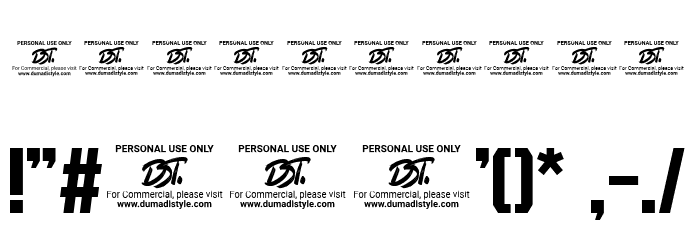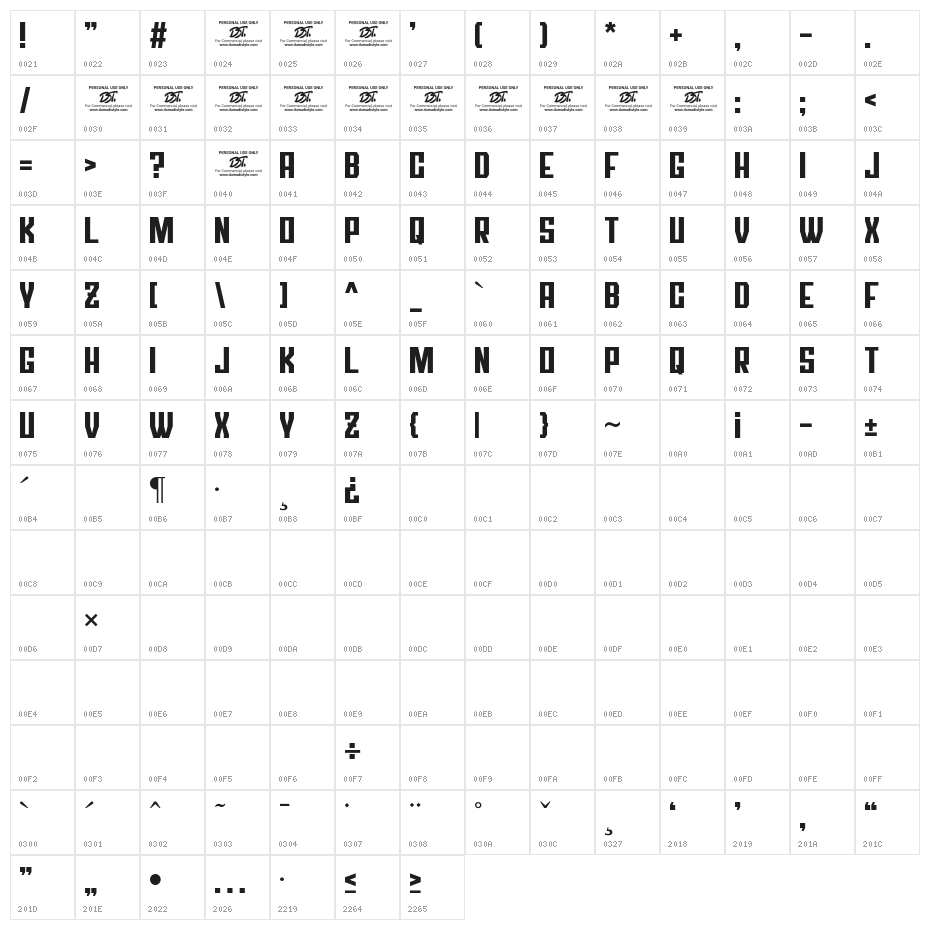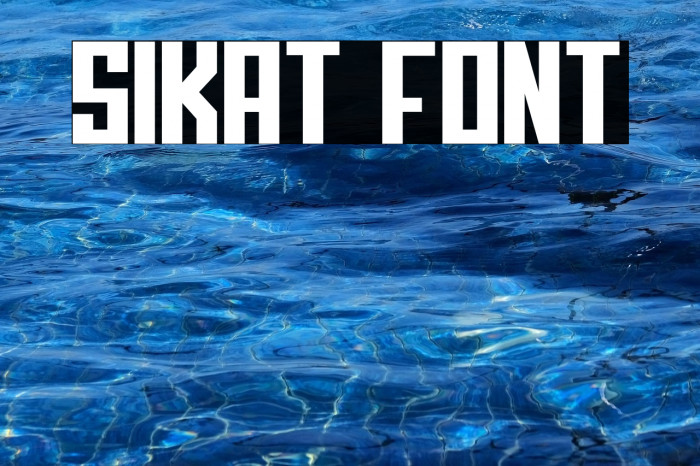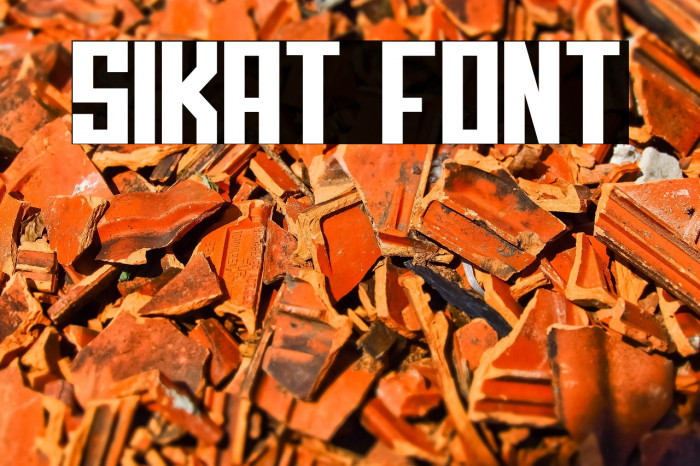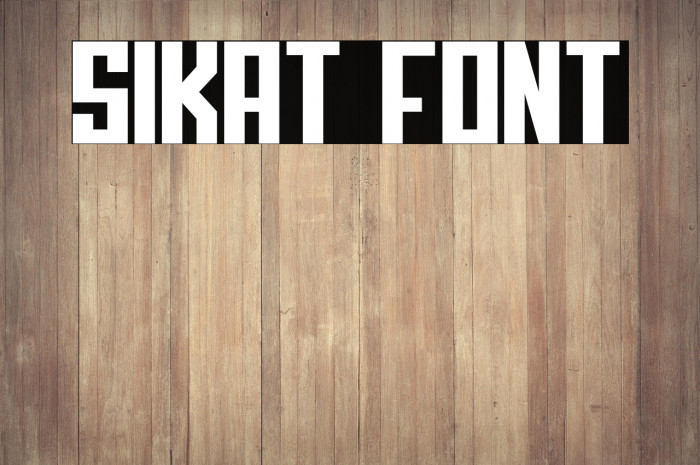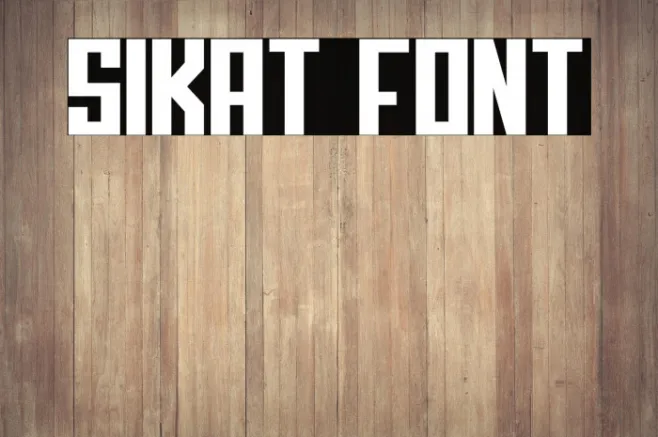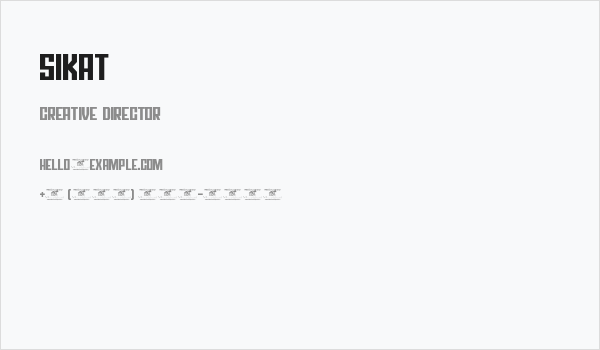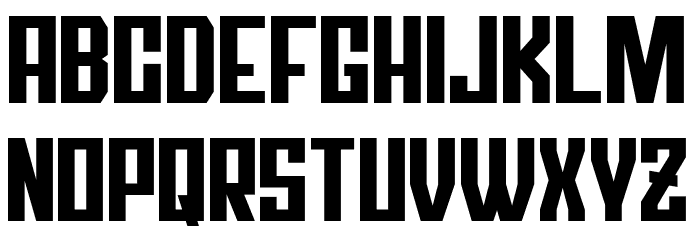
SIKAT Font
SIKAT Description
This font features a bold and impactful style with strong geometric shapes and sharp angles. Each character is designed with a consistent width, creating a uniform appearance across the alphabet. The uppercase letters are particularly striking, with a blocky, almost industrial feel that commands attention. The font includes a full set of uppercase letters, numbers, and a selection of special characters, making it versatile for various design needs. Its boldness and clarity make it suitable for headlines and titles, where readability and impact are essential.
| Proposed Projects | This font is perfect for projects that require a strong visual impact, such as posters, banners, branding materials, and logo designs. Its bold style makes it suitable for sports team branding, event promotions, and any design that needs to convey strengt |